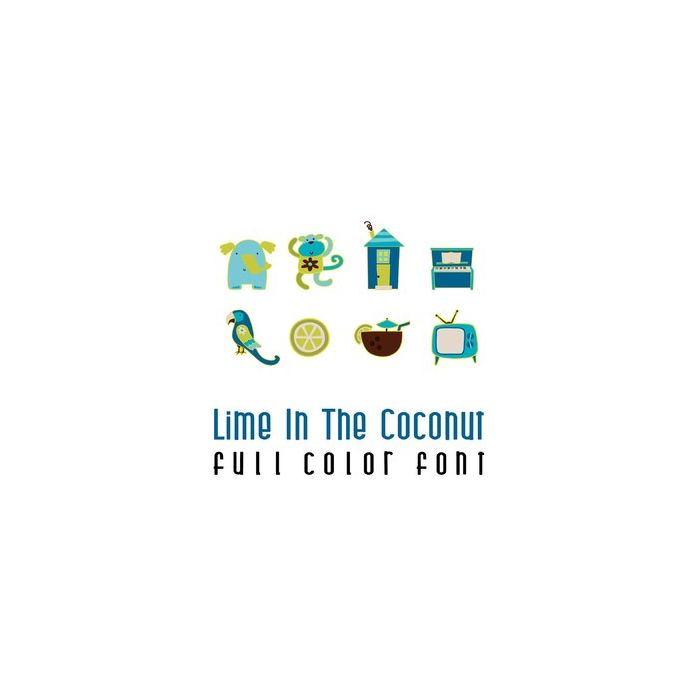
This adorable full color doodlebat font features fun tropical themed imagery perfect for Summer. Perfect for cards, crafts, gifts, decor, scrap book pages, planner stickers and more!